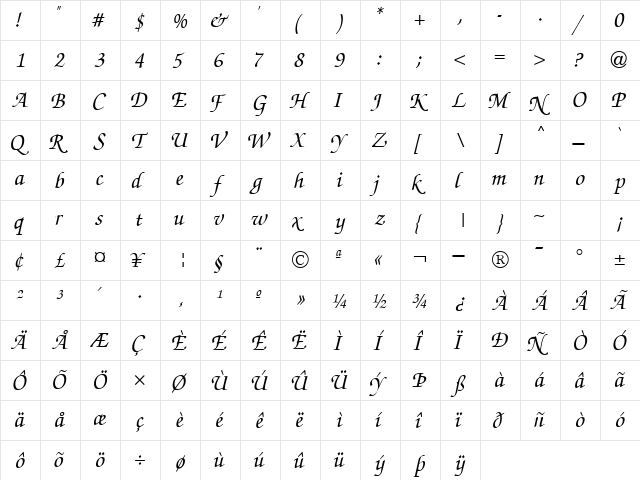
ChanceryScriptMediumSSK Italic
Design Context for ChanceryScriptMediumSSK Typeface
ChanceryScriptMediumSSK brings a calligraphic fluidity to the page — its connecting strokes and expressive curves give it an unmistakably human quality.
Font Pairing: Combine ChanceryScriptMediumSSK with a simple geometric sans for maximum contrast — the tension between flowing curves and clean structure is a classic typographic pairing.
Pro Tip: Pair ChanceryScriptMediumSSK with a clean sans-serif for supporting text. The contrast between fluid script and geometric structure creates an elegant typographic hierarchy.